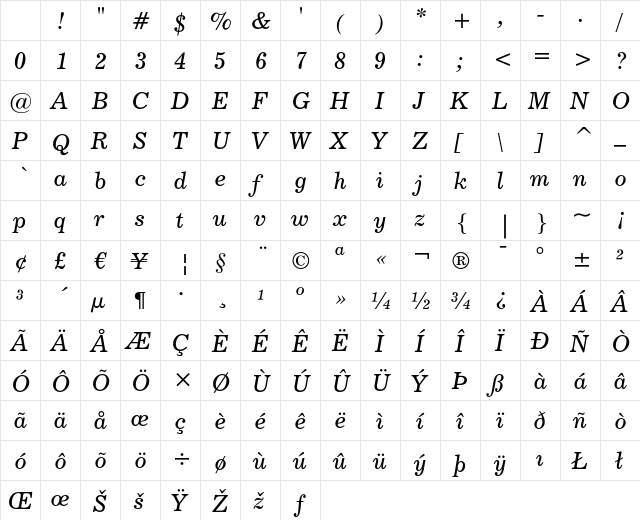
Century 731 is a composed and adaptable typeface that performs quietly and consistently across a wide range of design contexts. The slanted form adds forward momentum and visual energy.